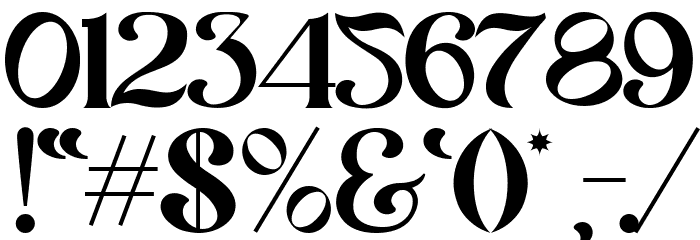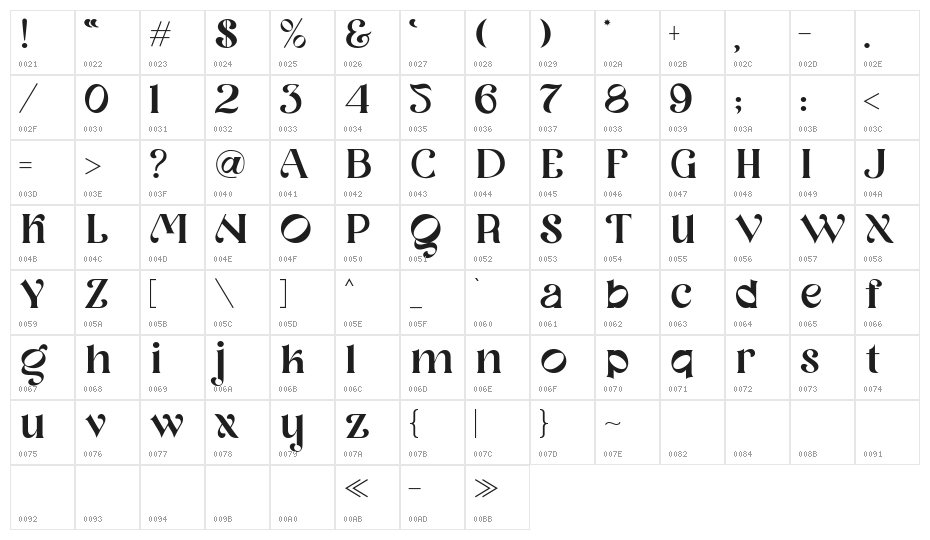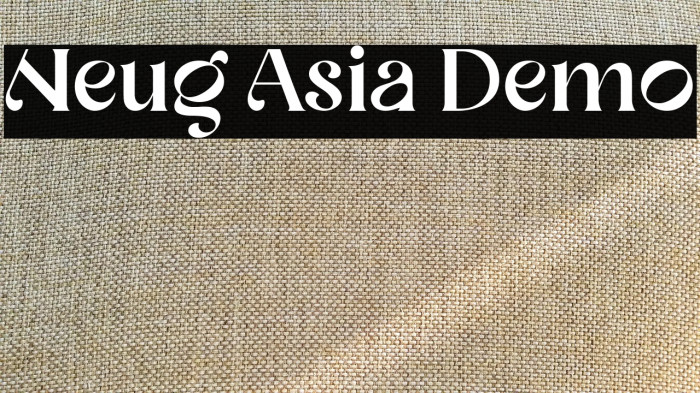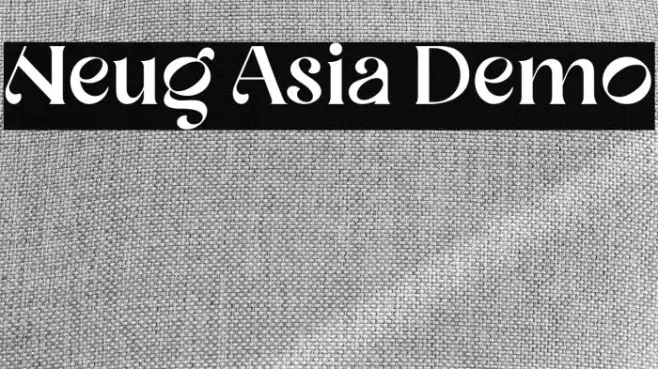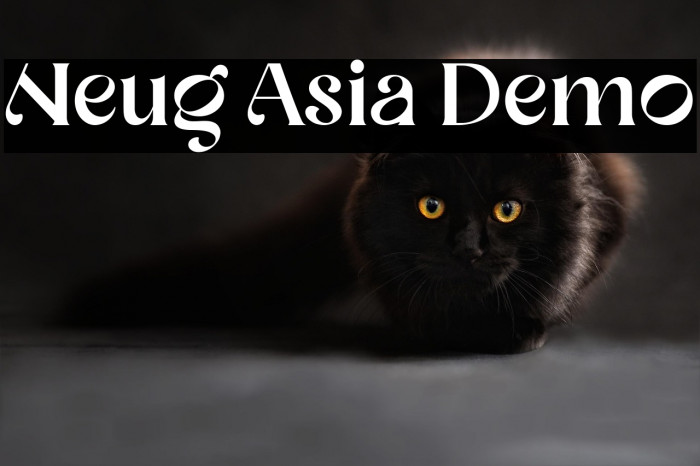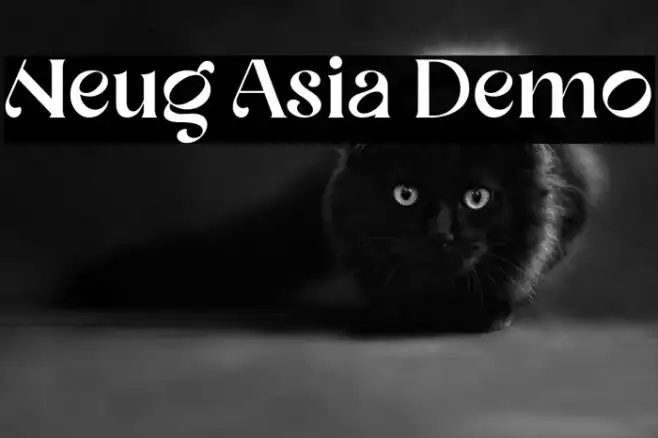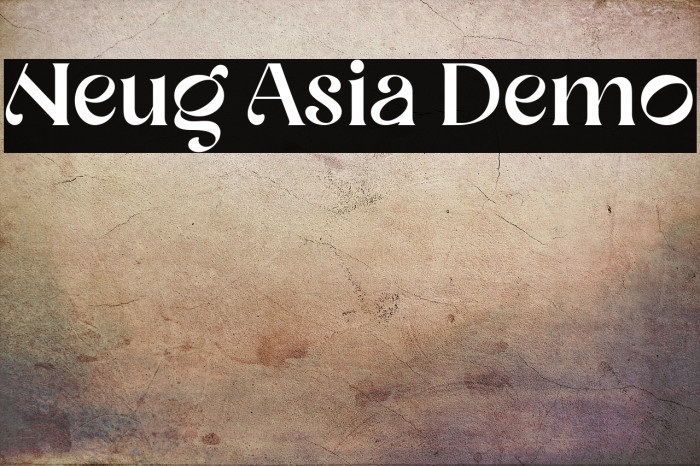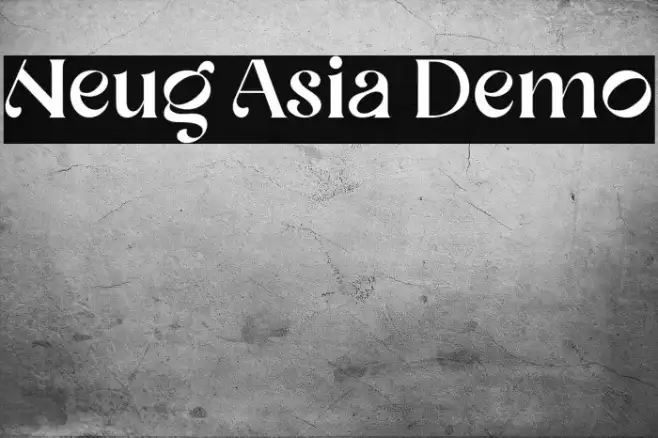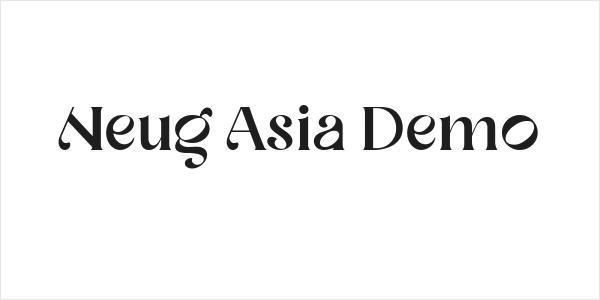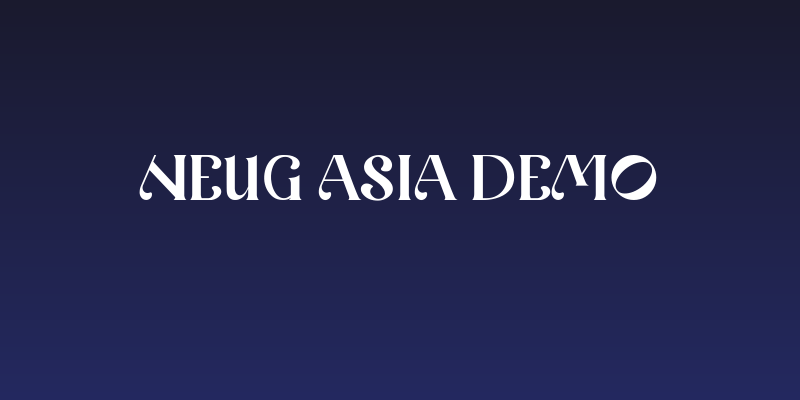
Neug Asia Demo Font
Neug Asia Demo Description
This font features a unique blend of modern and vintage styles, characterized by its bold and decorative elements. The uppercase letters exhibit a strong presence with distinct curves and sharp edges, while the lowercase letters maintain a consistent flow with subtle flourishes. The numerals are equally bold, with a playful yet sophisticated design. Special characters are creatively integrated, adding to the font's overall decorative appeal. The font's high contrast in stroke thickness enhances its readability and visual impact, making it suitable for various design projects.
| Overall Style | Modern, Vintage, Decorative |
| Proposed Projects | Ideal for branding, poster design, headlines, and creative projects that require a striking visual impact. |